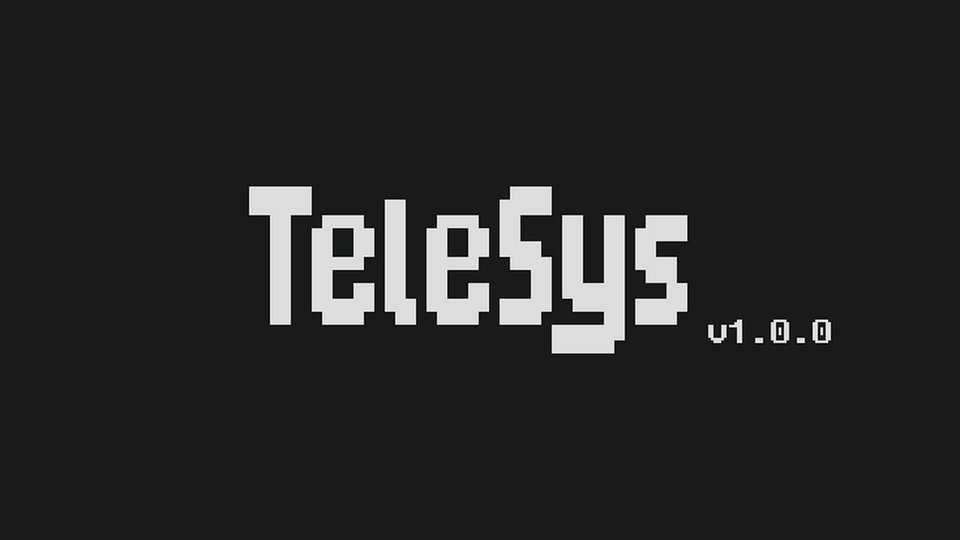
Download TeleSys font, a terminal typeface for BBSes and general terminal usage. TeleSys font is based upon FixedSys with adaptations to make it more like the Mode7 TeleText font
Designer: Andrew O’Rourke